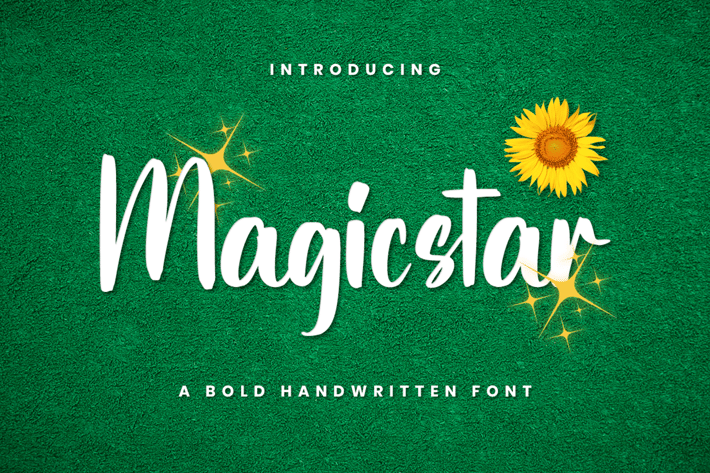
Magicstar - Handwritten Font
Magicstar is a daring handwritten font created with brush pen strokes. This bold font will beautify and emphasize your design. Add it confidently to your projects, and you will love the results.